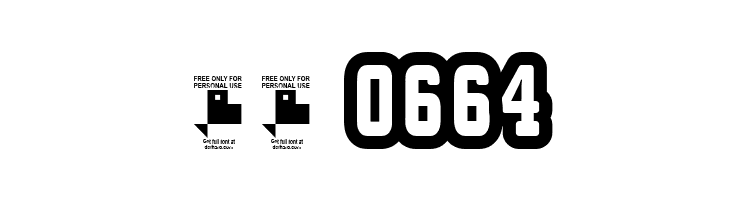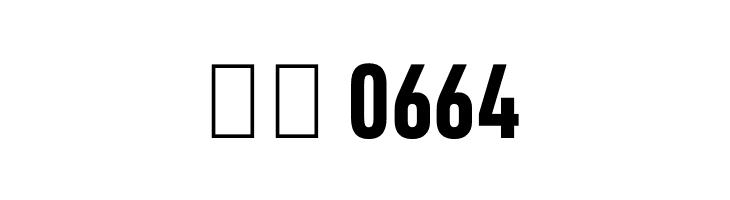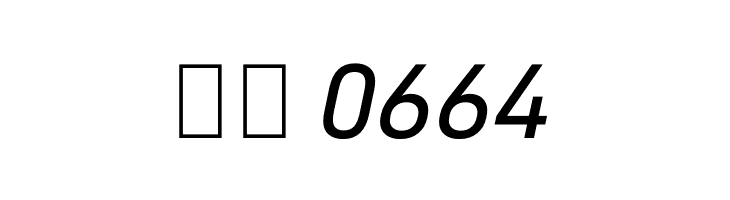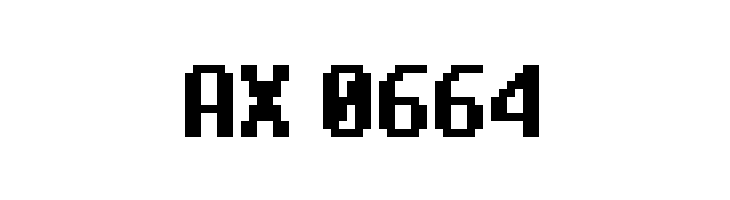
An ornate, vintage-style font with intricate decorative details.
A bold, pixelated font with a retro digital style.
A clean, geometric sans-serif typeface with a modern and structured design.
A clean, geometric sans-serif font with a modern and professional appearance.
A bold, modern sans-serif font with a geometric structure and excellent readability.
A modern, condensed sans-serif font with a clean and geometric design.
A bold, condensed sans-serif font with a modern and structured appearance.
A bold, condensed font with a modern and geometric style.
A modern, geometric sans-serif typeface with clean lines and excellent readability.
A modern, geometric sans-serif font with uniform stroke widths and clear readability.
A bold, modern sans-serif font with expanded width and clean lines.
A bold, modern sans-serif font with geometric precision and excellent readability.
A modern, italicized sans-serif font with a clean and dynamic style.
A modern, italic sans-serif font with clean lines and a dynamic style.
A modern, italicized font with geometric precision and consistent stroke widths.
A modern, italicized sans-serif font with a clean and professional look.
A bold, outlined font with a playful and impactful style.
A playful, casual handwritten font with a doodle-like style.
A bold, distressed font with a hand-drawn, grunge style.
A playful, artistic font with tall, hand-drawn characters and varying stroke widths.
A bold, hand-drawn style font with expressive, uneven strokes.
A bold, dynamic font with unique curves and artistic flair.
A bold, geometric font with a playful yet structured design.
A bold, dynamic font with a playful and adventurous style.
A bold, wide, and dynamic font with angular characters.
A bold, geometric font with angular characters and a modern flair.